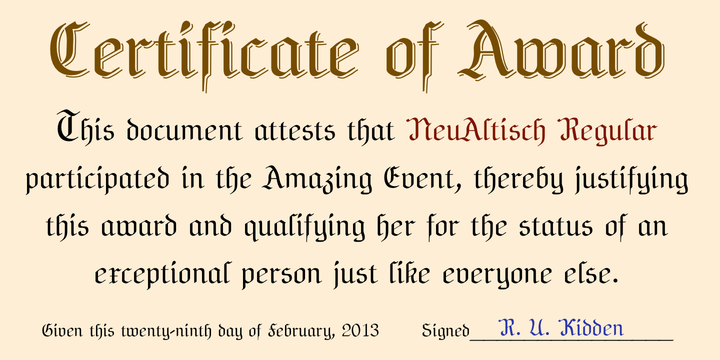
NeuAltisch is a calligraphic version of a modernized, more rounded Fraktur.
It comes in two weights, plus three versions that are shadowed or striped.